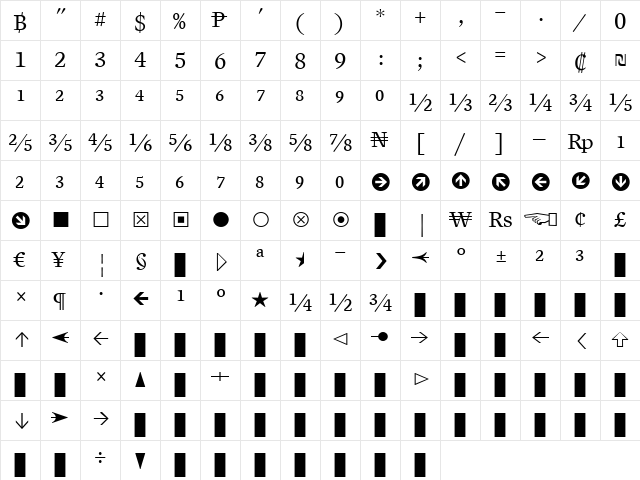
Mercury Numeric G1 Regular
Design Context for Mercury Numeric G1 Typeface
Mercury Numeric G1 takes a measured approach to typography — its balanced proportions and neutral character make it a reliable workhorse for both digital and print work.